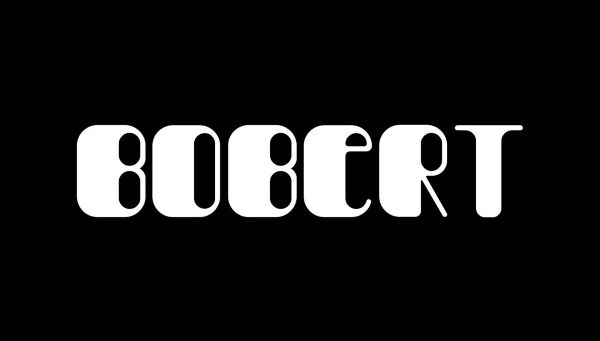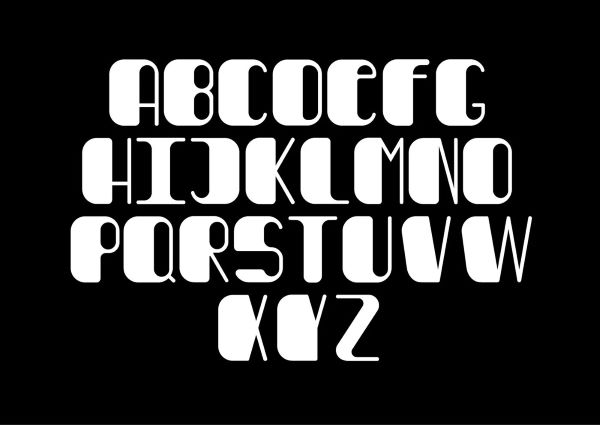
Bobert Font
Bobert Font is an experimental display typeface exploring soft geometry and compressed space, where each letter feels like an object extruded from a single volume. Its sculptural forms create a strong visual identity, making it ideal for posters, branding, logos, and conceptual designs that seek depth, uniqueness, and modern expression, especially within curated selections of free fonts.